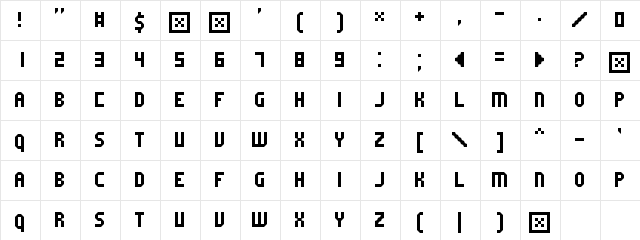
Fruity microfont Regular
Design Context for Fruity microfont Typeface
Fruity microfont takes a measured approach to typography — its balanced proportions and neutral character make it a reliable workhorse for both digital and print work.
Pro Tip: Use Fruity microfont in both headline and body roles to test its range before committing to a single application.